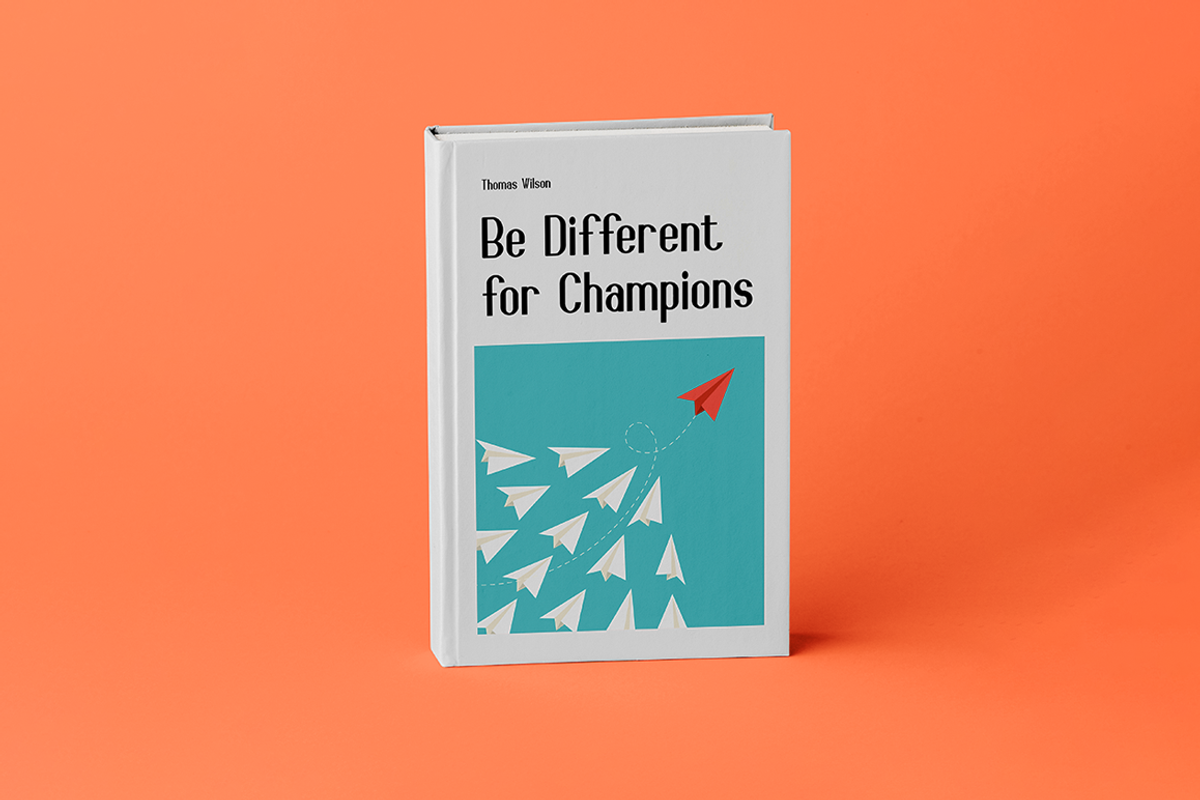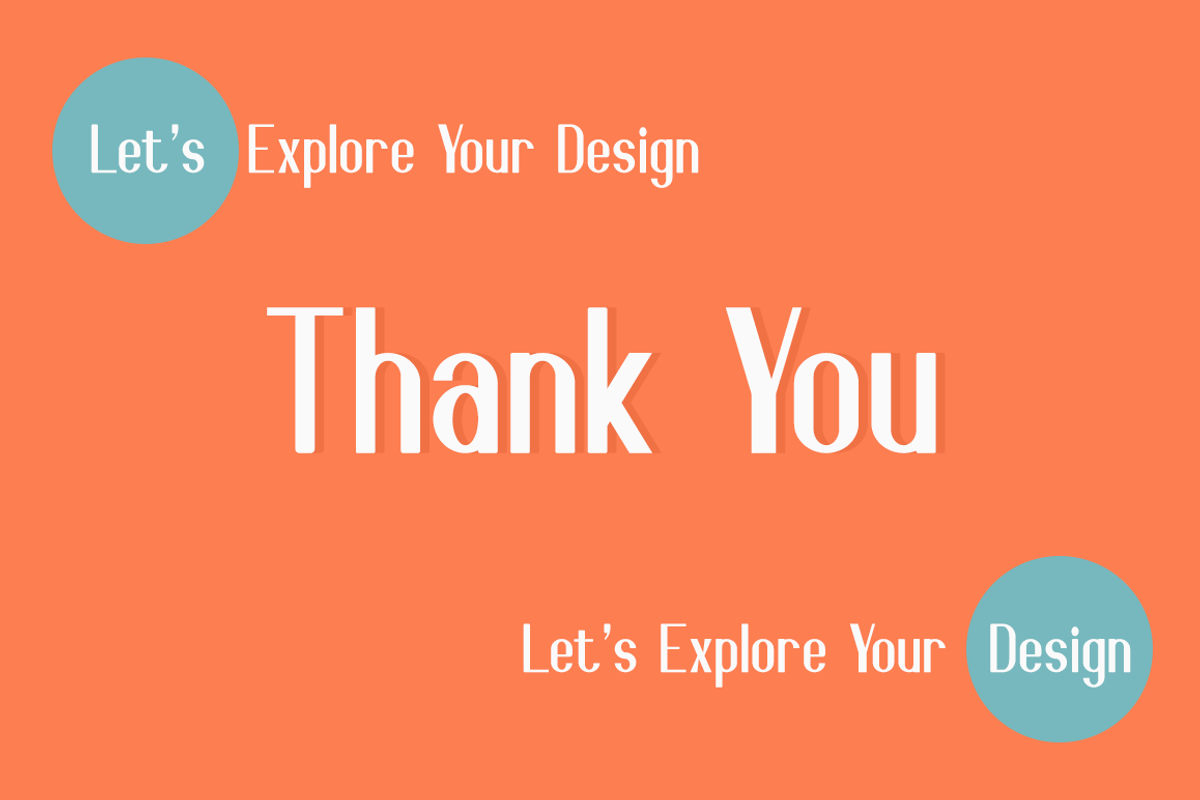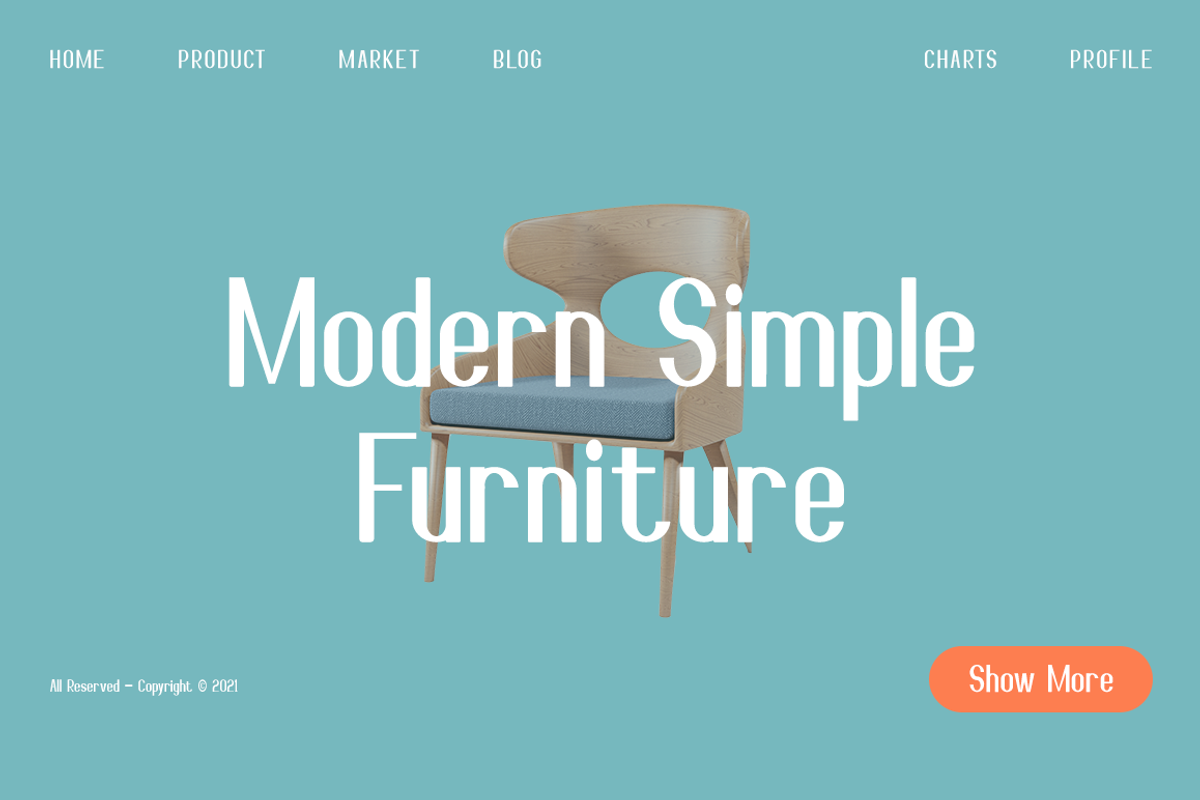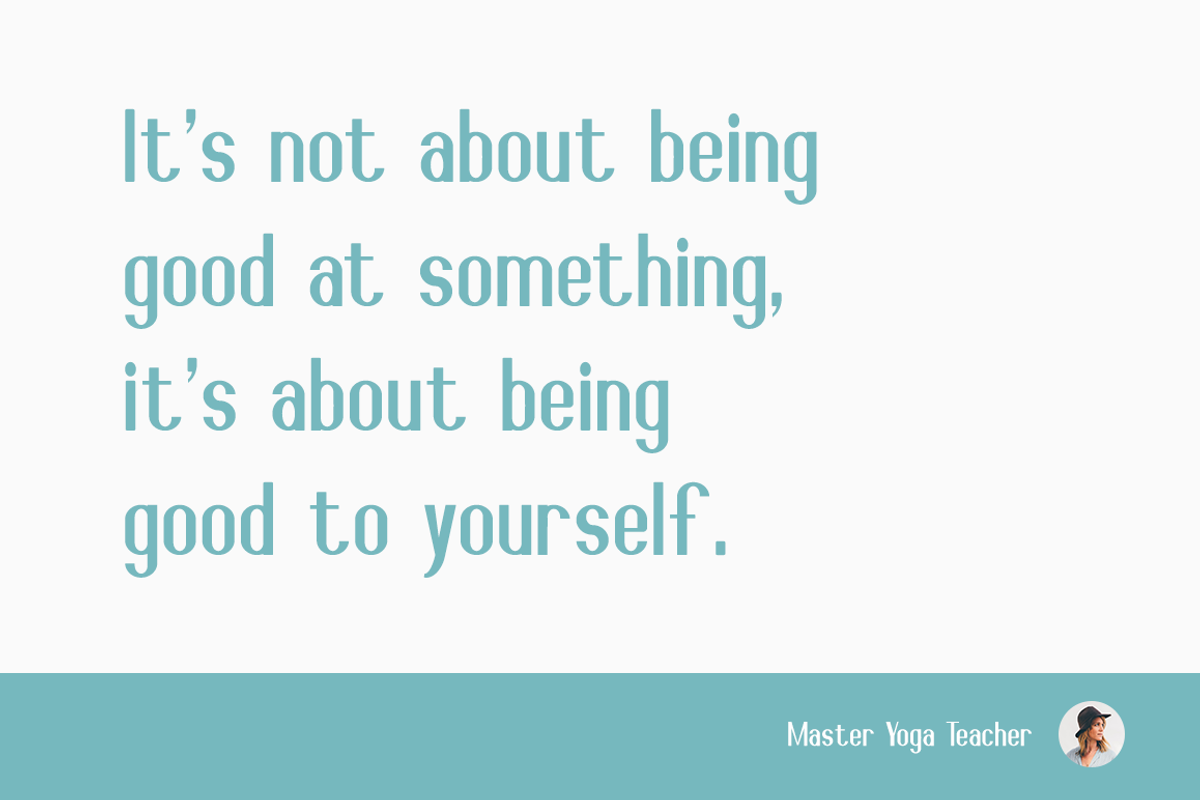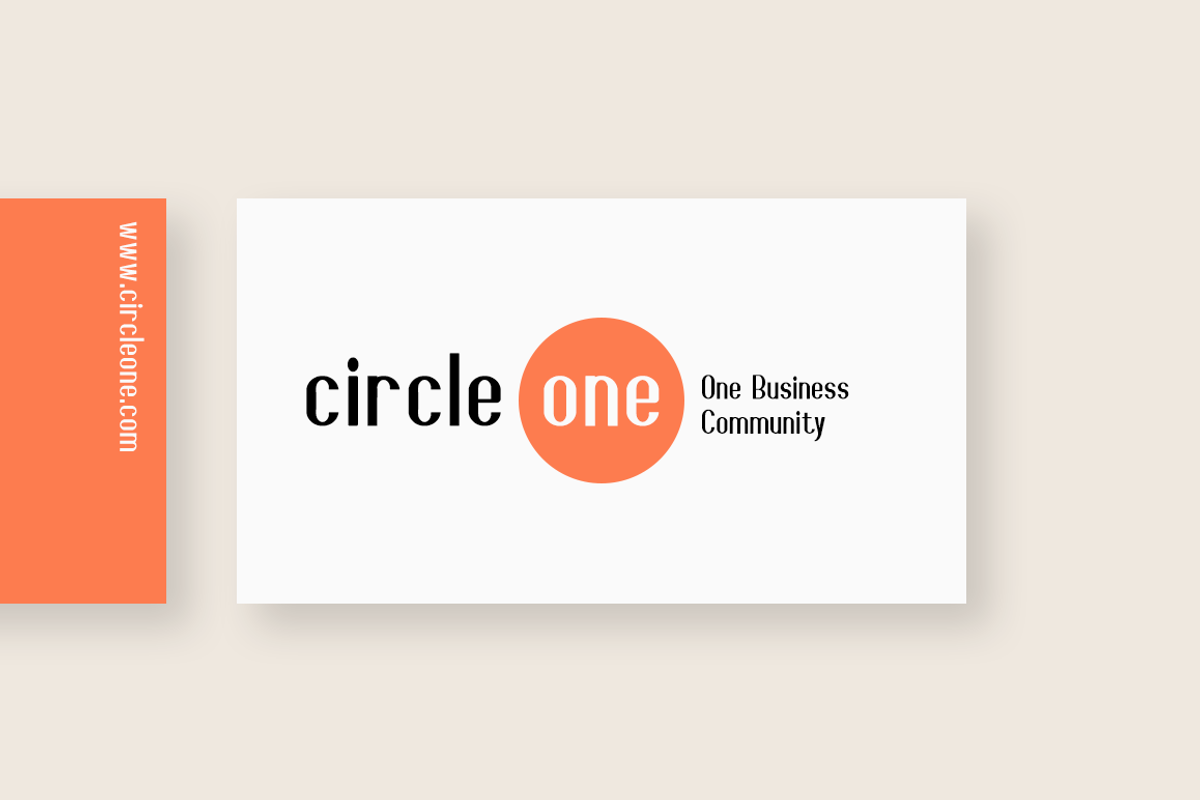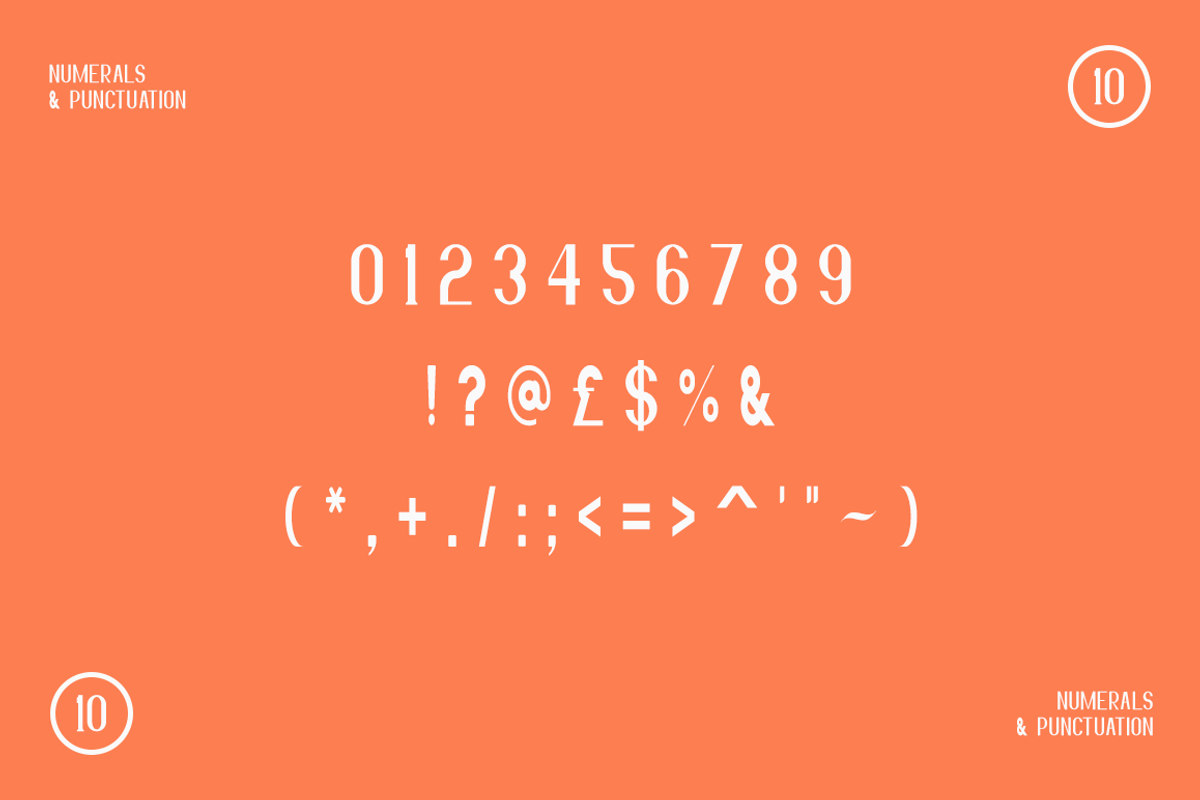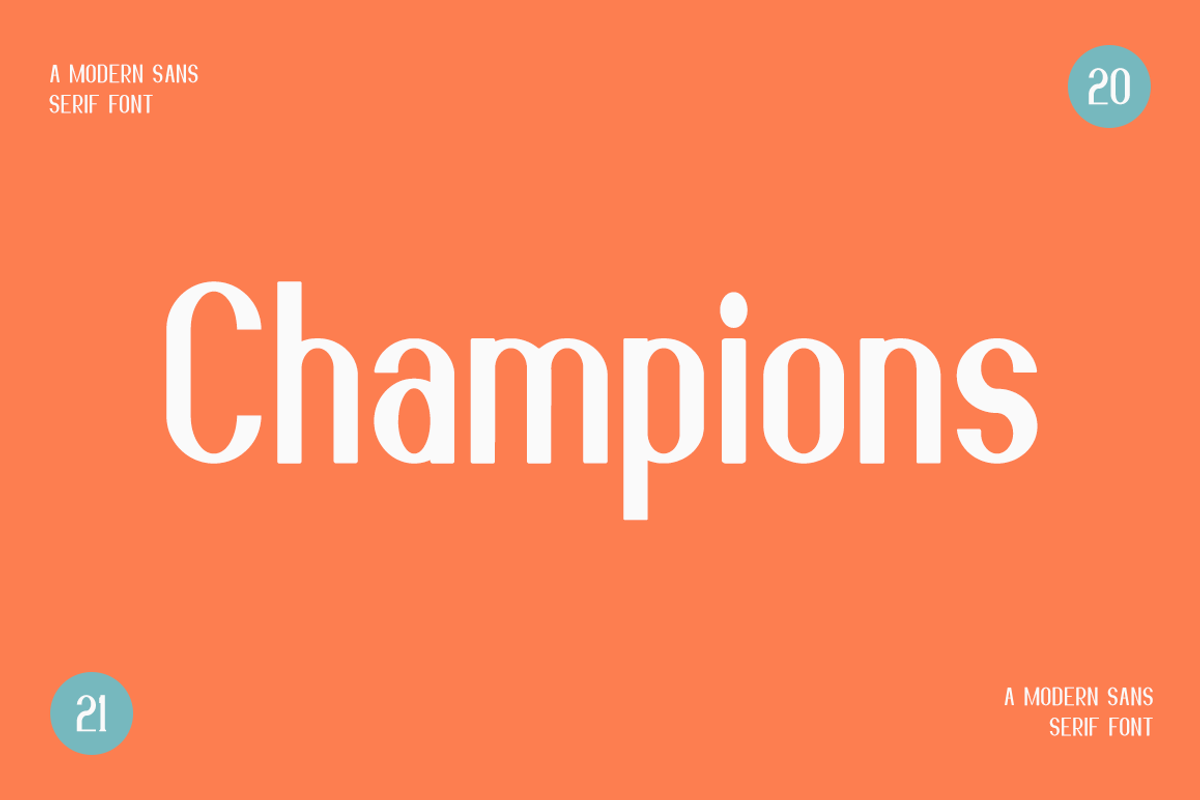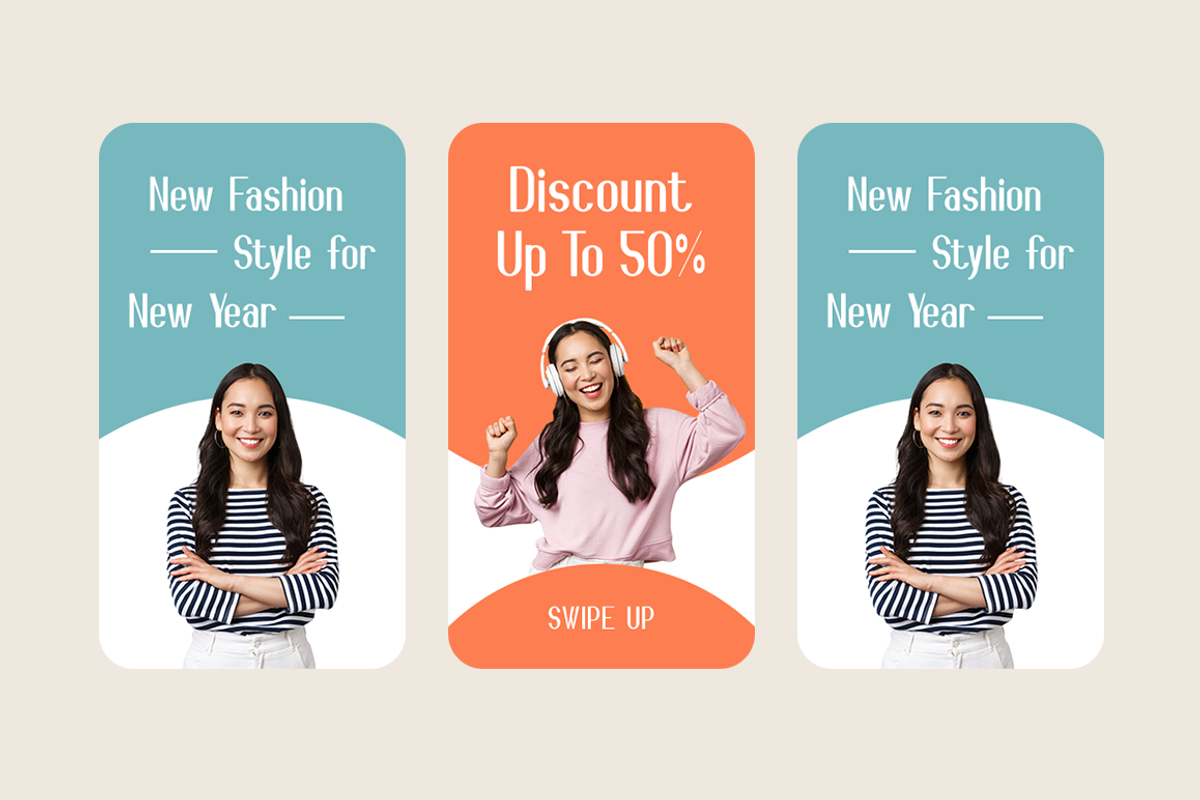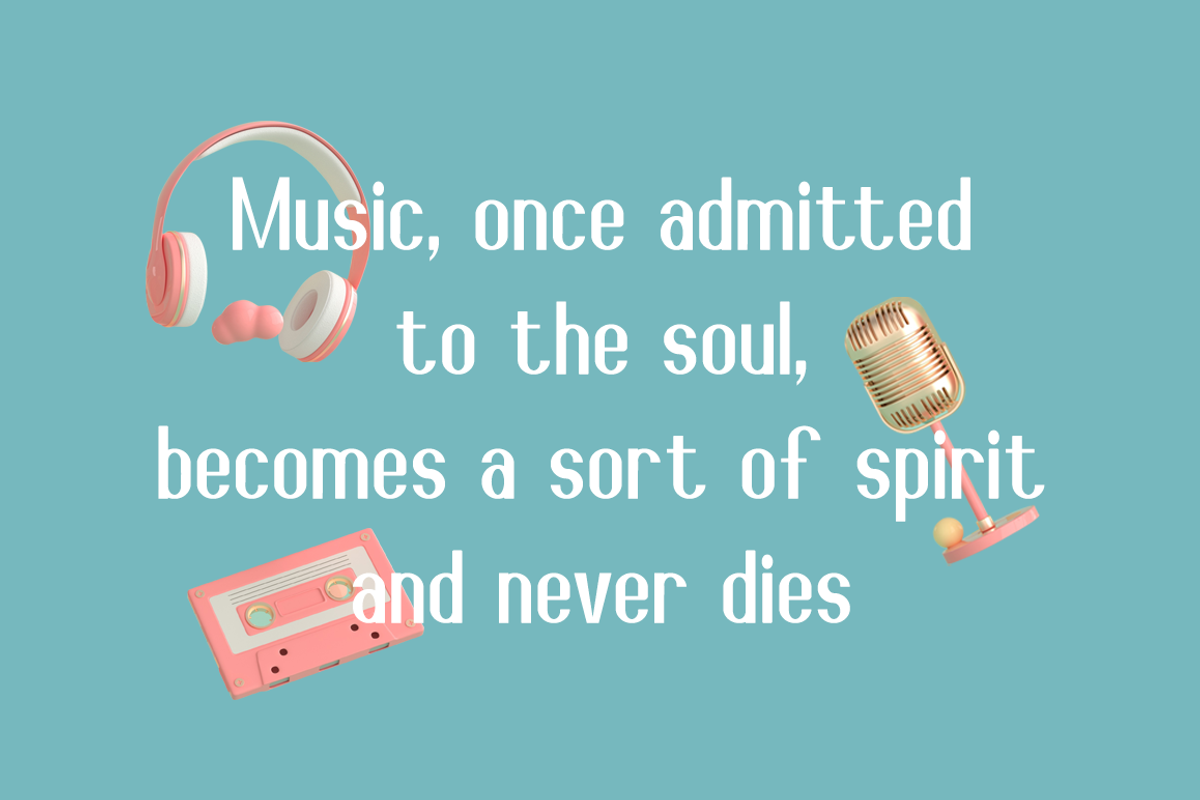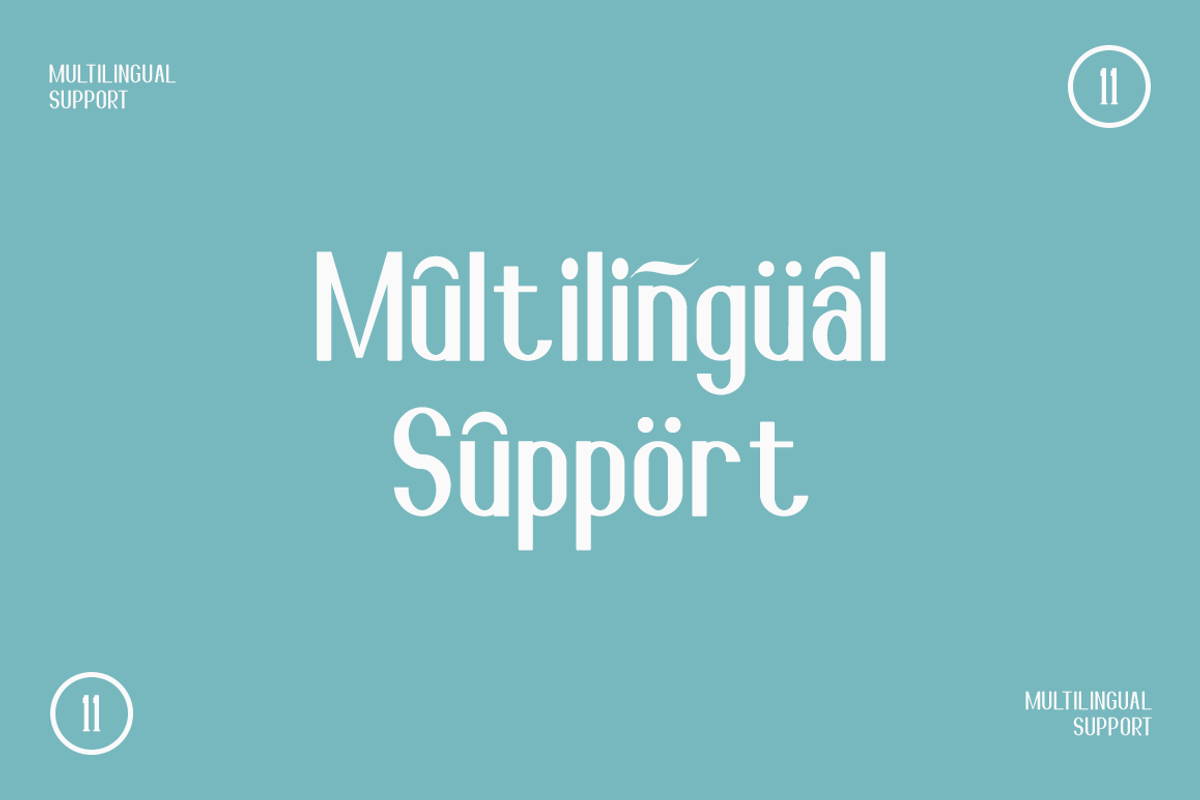
Champions - Modern Stylish
Champions is a minimal and neat sans serif font. It can easily be matched to an incredibly large set of projects, so add it to your creative ideas and notice how it makes them stand out!